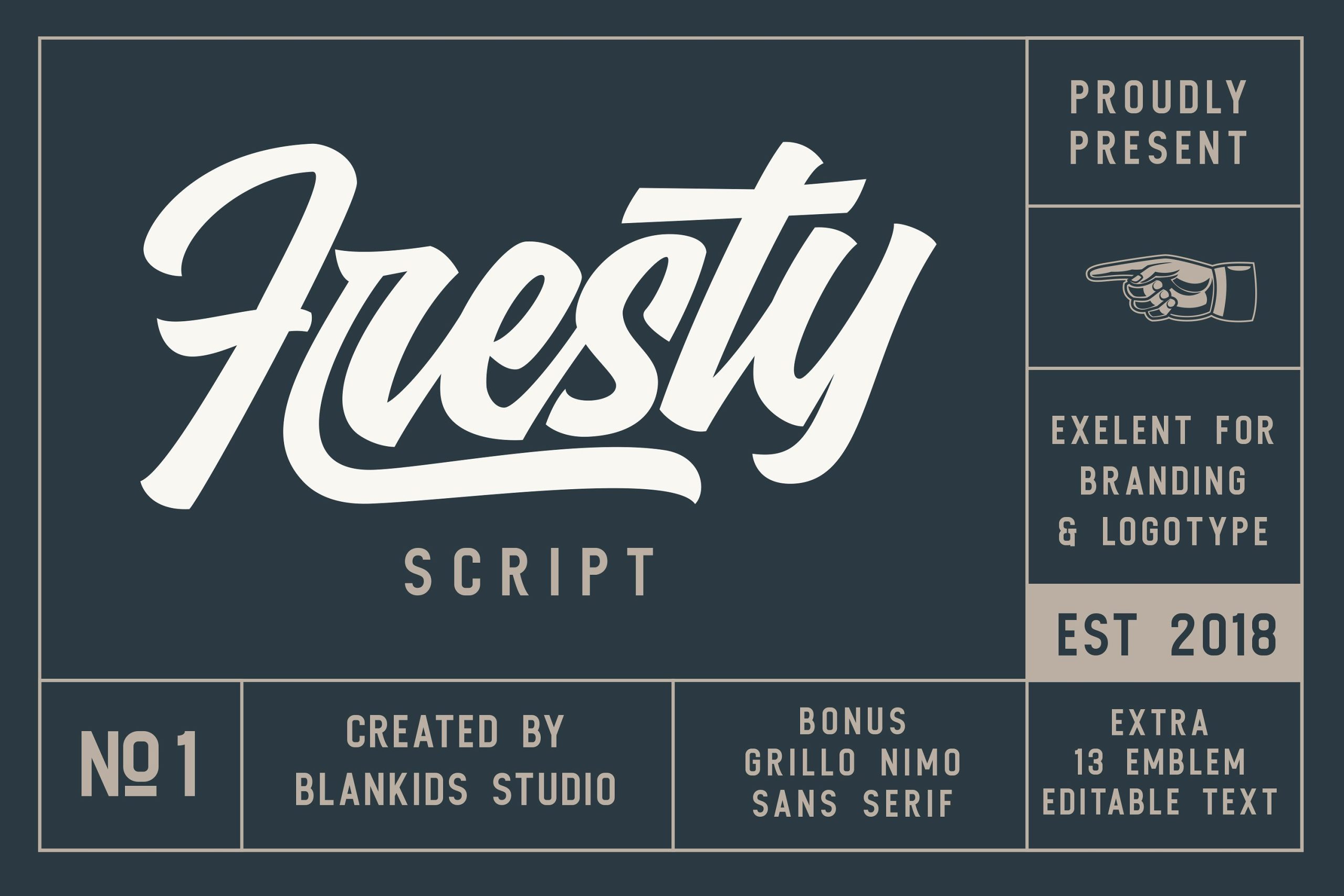
Fresty Script Font
Continue as a new font duo: frestyscript & grillo nimo sans serif. It is was designed and shares by Blankids Studio. Fresty is awesome for branding and logotype, Fresty has the impression of modern, trendy and elegant. he also create Grillo Nimo sans serif for a combination and he added extras 13 different emblems / badges with editable text.